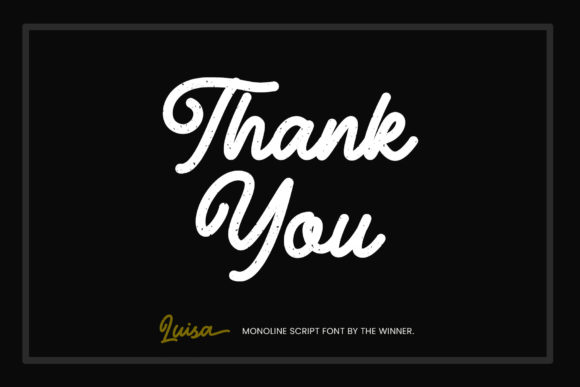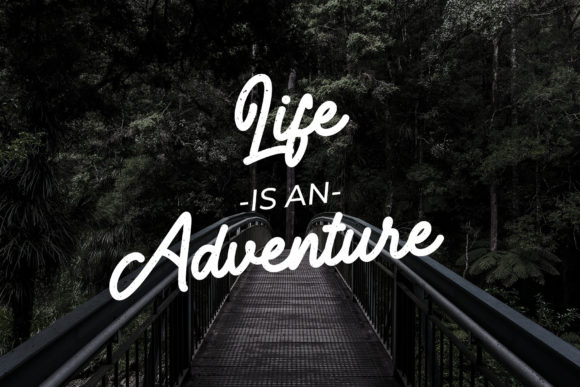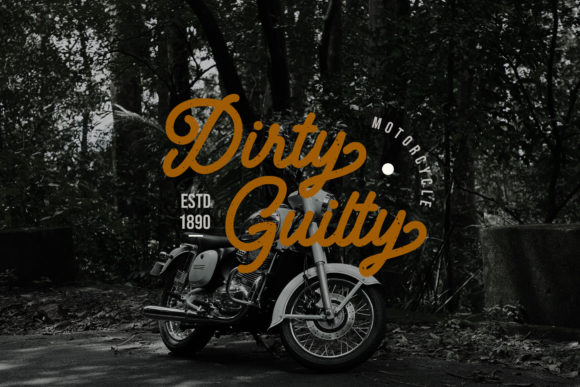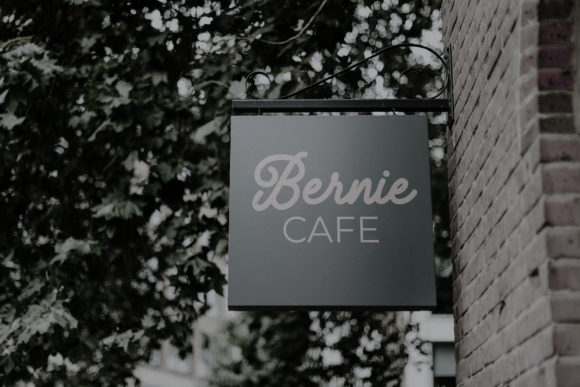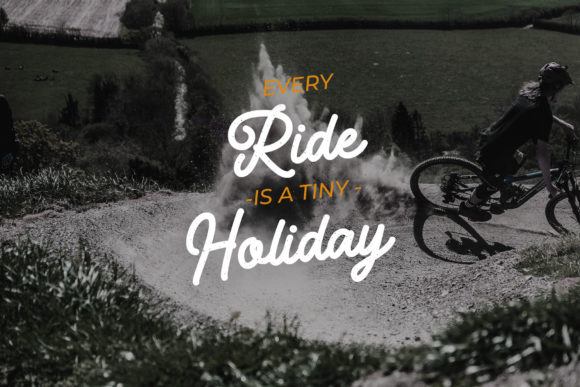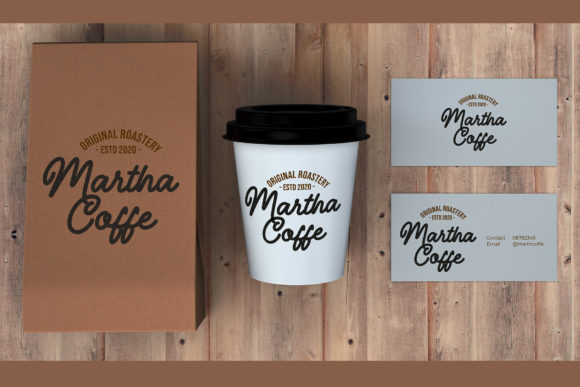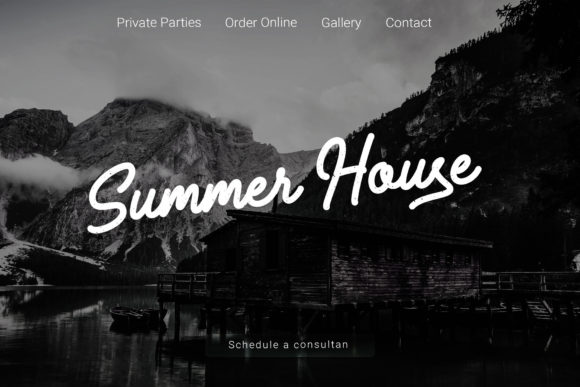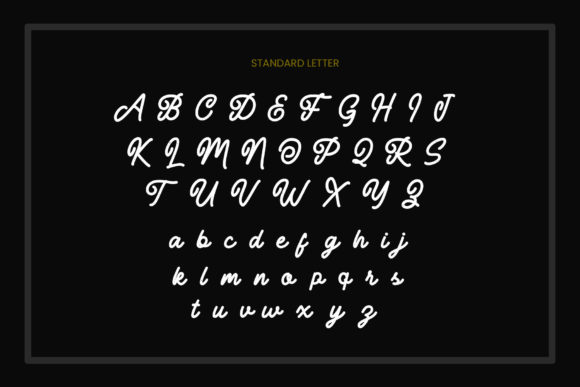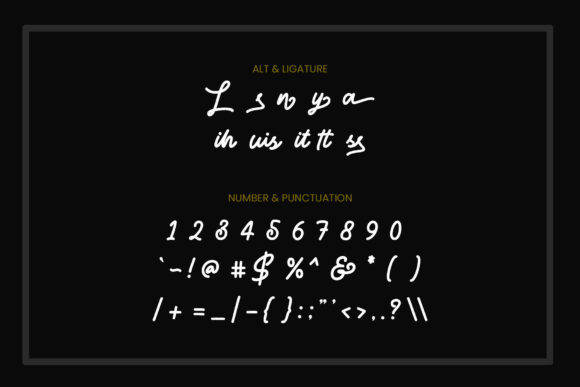
Luisa Font
About Luisa Font
Luisa is a sweet and cursive handwritten font that adds a touch of elegance and romance to your designs. With its gentle curves and flowing style, this font is perfect for a variety of design ideas.
The graceful and charming nature of Luisa makes it suitable for a range of projects. Whether you’re creating wedding invitations, love letters, greeting cards, or any other design that aims to evoke a sense of romance and joy, Luisa will elevate your project with its delicate and beautiful appearance.
The cursive script of Luisa adds a sense of elegance and sophistication. Each letter is carefully crafted to maintain a harmonious flow, creating a smooth and graceful visual experience. This makes Luisa ideal for creating elegant logos, stylish branding materials, and refined typography in various contexts.
The versatility of Luisa allows it to be used across different media. From digital designs such as social media posts, website headers, and blog graphics, to print materials like stationery, packaging, and product labels, Luisa adds a touch of charm and personality. Its gentle and cursive nature makes it stand out and draw attention to the text.
Additionally, Luisa brings a sense of joy and playfulness to your projects. Its whimsical appearance adds a touch of personality and can be applied to children’s books, playful designs, or any project that requires a lighthearted and friendly atmosphere.
In conclusion, Luisa is a sweet and cursive handwritten font that adds elegance, romance, and joy to your designs. Its gentle curves, flowing style, and versatile nature make it suitable for a variety of projects, from wedding invitations to playful designs. Let Luisa bring a touch of beauty and charm to each of your creative endeavors!